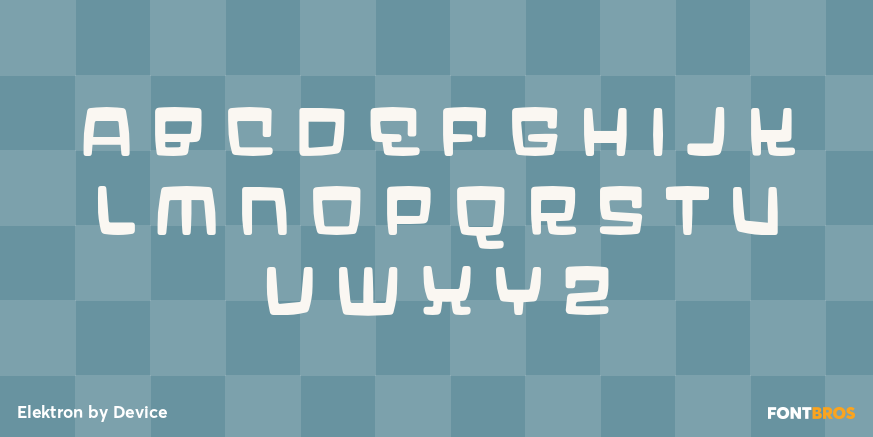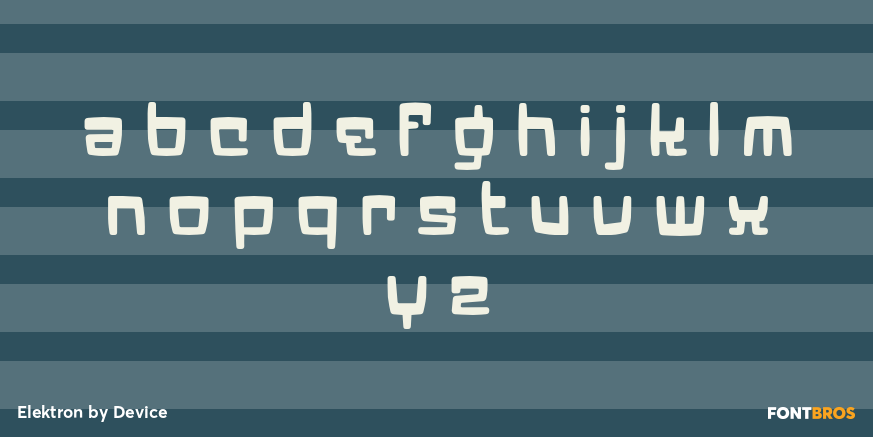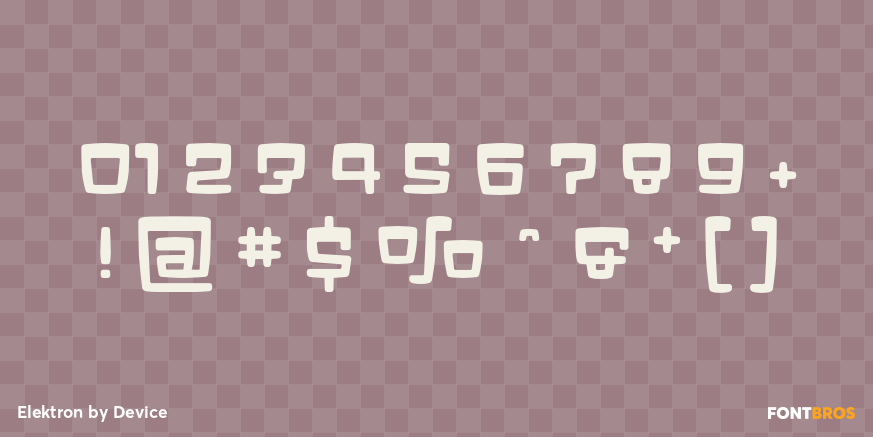
Elektron
Elektron is a four-style display family from Device with a playful, futuristic voice. Its letterforms feel bold and offbeat at the same time, giving layouts a lively, slightly wacky edge that stands out fast in large sizes.
With Shaded, Medium, Light, and Bold styles included, the family gives you room to shift from lighter, more open headlines to heavier, more emphatic display treatment. It’s a natural fit for posters, branding, packaging, titles, and other attention-grabbing work where a fun sci-fi attitude can do the talking.
If you’re looking for a type family that mixes retro-futuristic energy with a graphic, expressive presence, this one brings plenty of personality without losing its clean display focus.